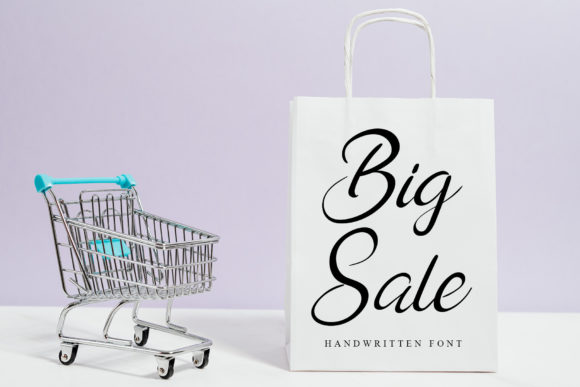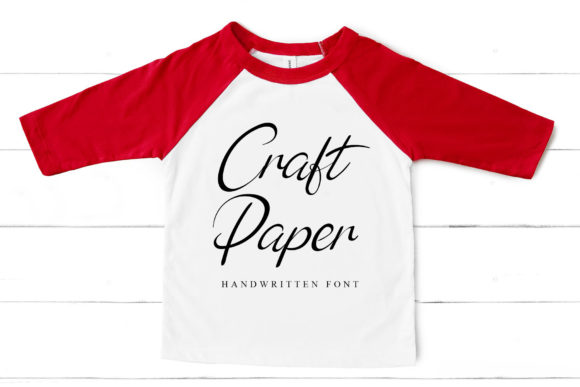
Halloween Kitachlen Font
db-ku.com - Script & Handwritten -- Halloween Kitachlen is a cursive script font. Its flexibility and neat style will brighten up each of your designs. Have fun with this cool font and explore its endless variations.